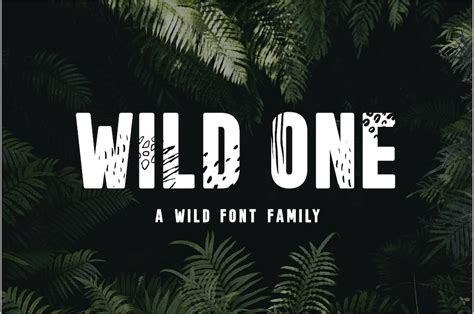
Wild One Font. This font is jungle inspired and super fun! This font is perfect for quotes, branding, children's designs, logos, invitations and more!
This font is jungle inspired and super fun! The wild ones font has been downloaded 111,762 times. The wild one solid ; Wild ones by dikas studio. There are 3 styles included: 438,319 downloads (6 yesterday) free for personal use. Download the wild ones font by dikas studio. This font is perfect for quotes, branding, children's designs, logos, invitations and more! Web wild one font is a new display font family available now on creative market! It’s bold and eye catching and is great for headings or editorial use.
This font is jungle inspired and super fun! Web wild one font is a new display font family available now on creative market! The wild one solid ; 438,319 downloads (6 yesterday) free for personal use. This font is jungle inspired and super fun! Web the wild one is a handwritten font with bold, fun letters. There are 3 styles included: Download the wild ones font by dikas studio. The wild ones font has been downloaded 111,762 times. It’s bold and eye catching and is great for headings or editorial use. This font is perfect for quotes, branding, children's designs, logos, invitations and more!